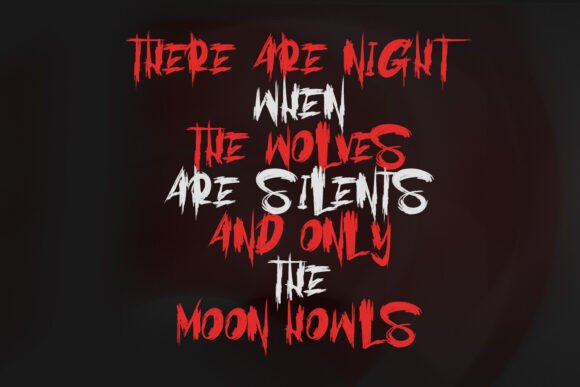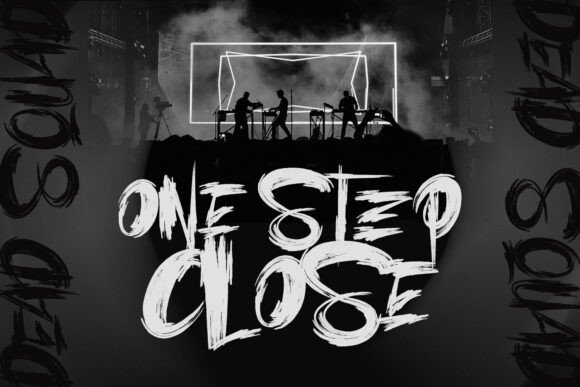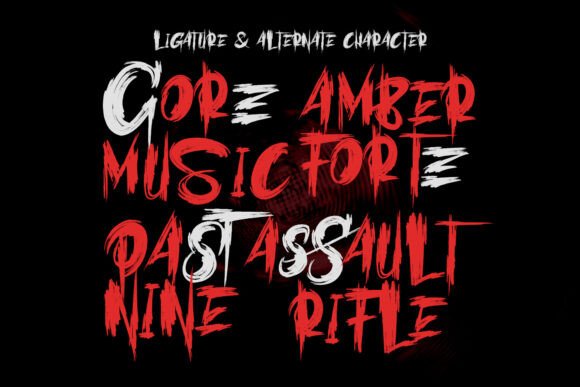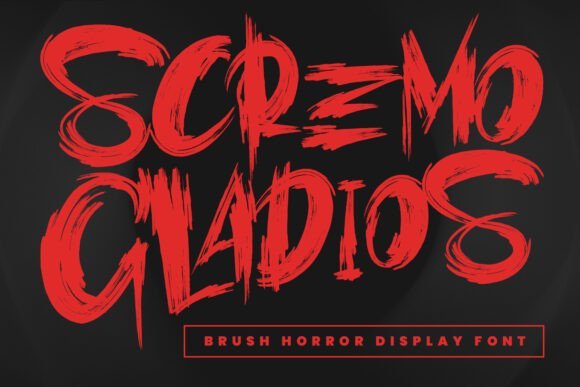
Introduction to Scremo Gladios Font
Give your designs an authentic brush handcrafted feel.
β€œScremo Gladios Brush Horor Display Font” is perfectly suited to signature, stationery, logo, typography quotes, magazine or book cover, website header, flyer, clothing, branding, packaging design and more .
Key Features of Scremo Gladios Font
Why Choose Scremo Gladios Font?
Scremo Gladios Font offers exceptional quality and versatility, making it a valuable addition to your design toolkit. Whether you’re creating for personal projects or commercial use, Scremo Gladios Font delivers professional results.